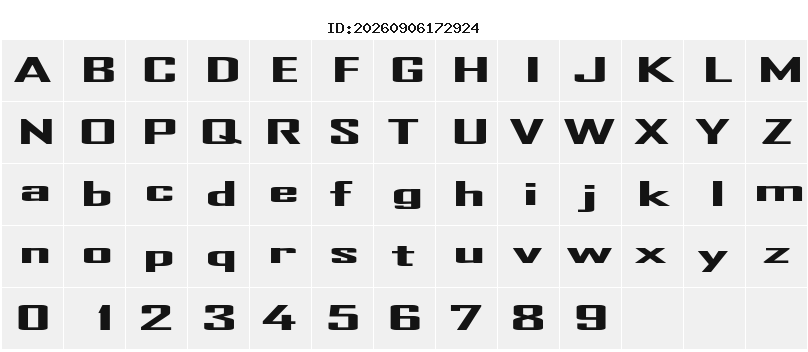
• Font Name: TR
• Font Style: Heavy
• Font ID: Macromedia Fontographer 4.1.4 TR Heavy
• Full Font Name: TR Heavy
• Version: Macromedia Fontographer 4.1.4 10/10/00
• PostScript Name: TRHeavy
About TR.ttf
TR.ttf is a modern, elegant sans-serif font designed for ultimate readability and visual harmony. Perfect for branding, headlines, web design, and print materials.